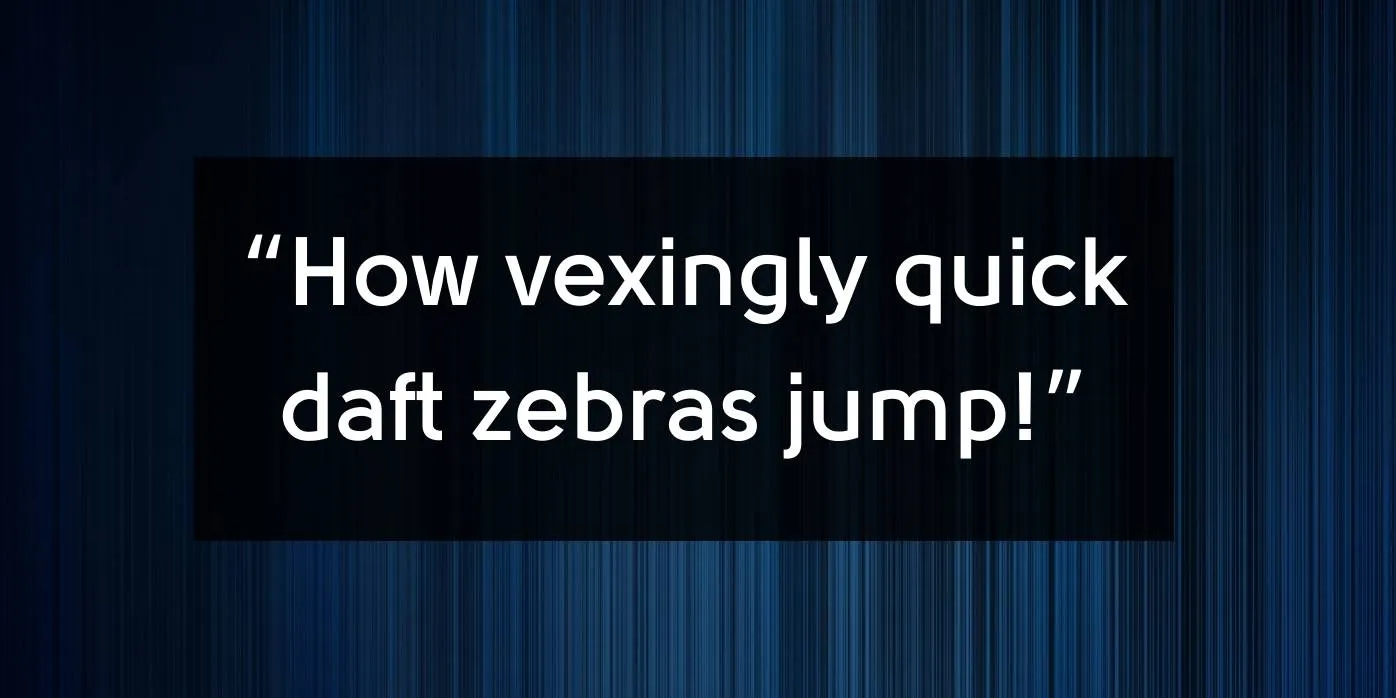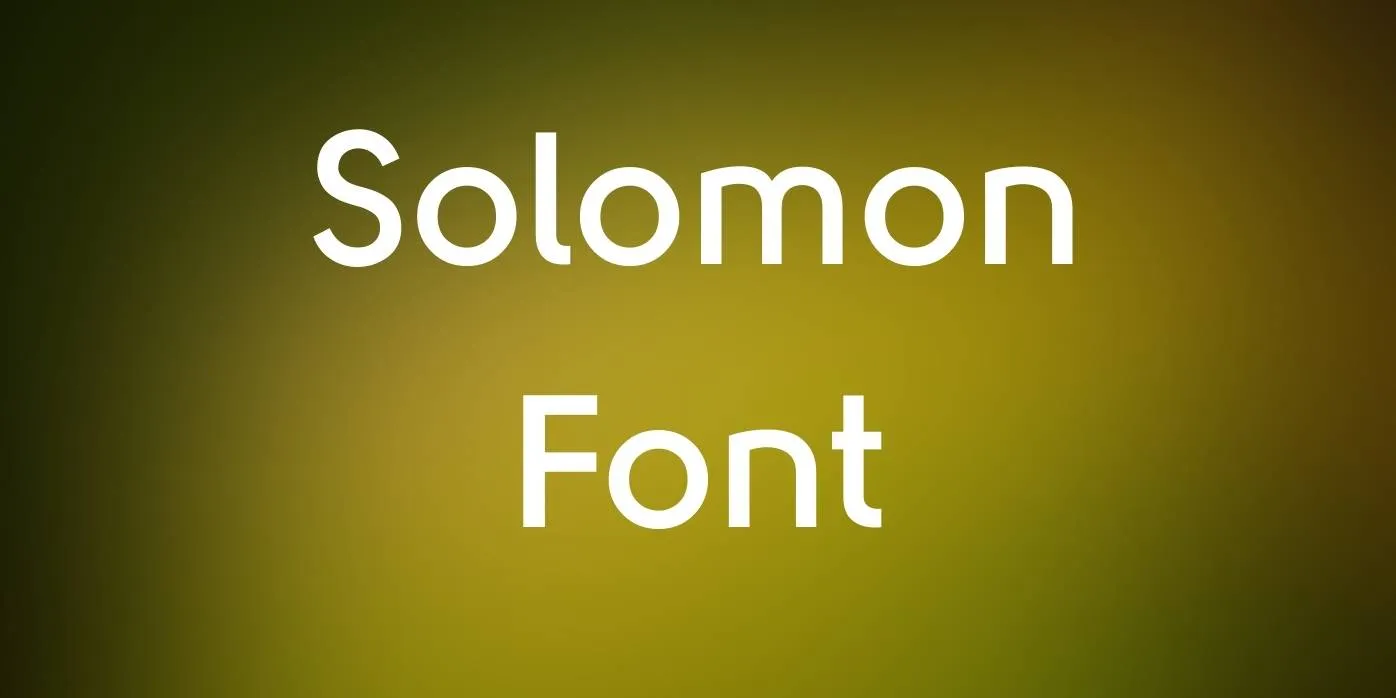
Solomon Font
Here we are going to discuss a new modern typeface that is known by the name Solomon Font. This classy typeface belongs to the Sans Serif typeface. This amazing typeface was developed by Fontfabric. It will be best for printing purposes.
Its copy and paste function is best for different designs. Elizabeth Font is one of the most similar to this cute typeface. It has keen and clean features. This stylish font was designed in the year 2020.
Its developer took the inspiration from classic Didone typefaces such as Bodoni Font. But he made some modifications to make it more contemporary. The result is a very elegant typeface that can be used for a variety of purposes. You need to download this typeface and used it in different projects.